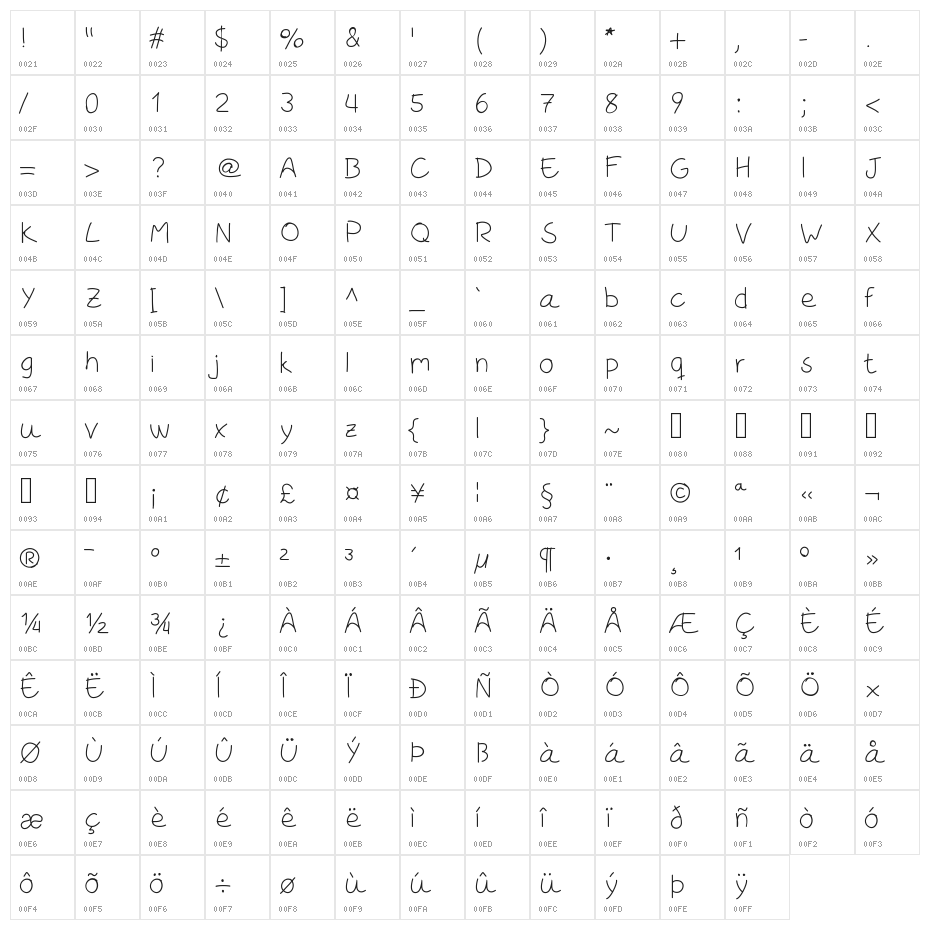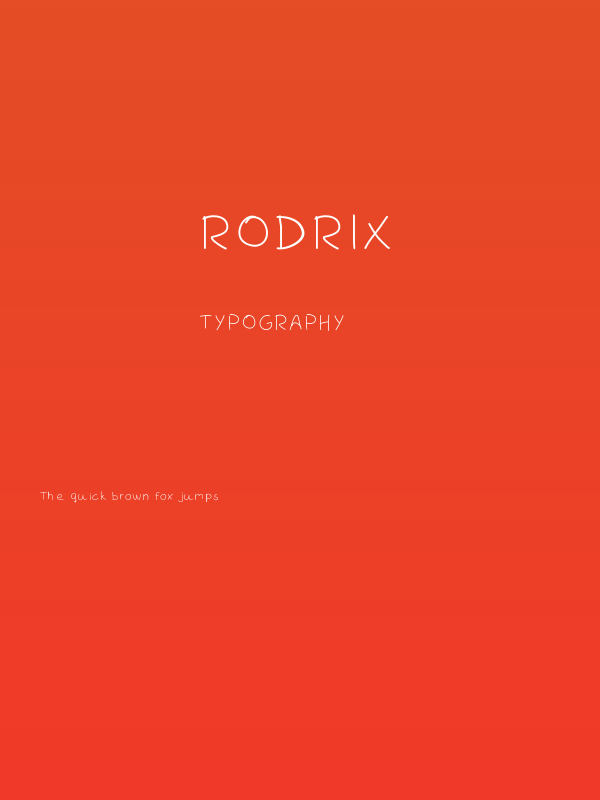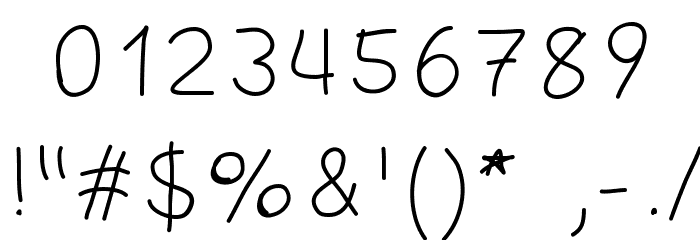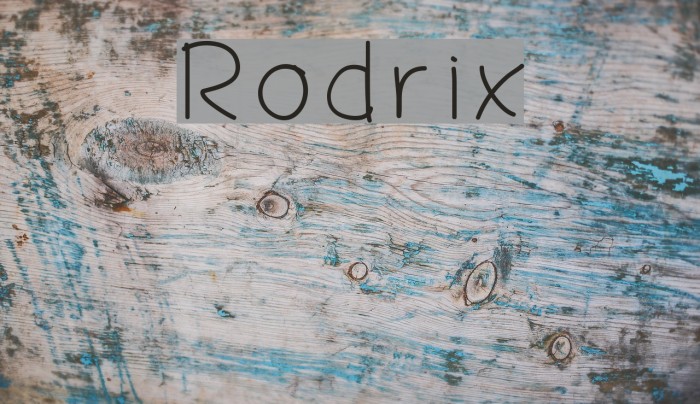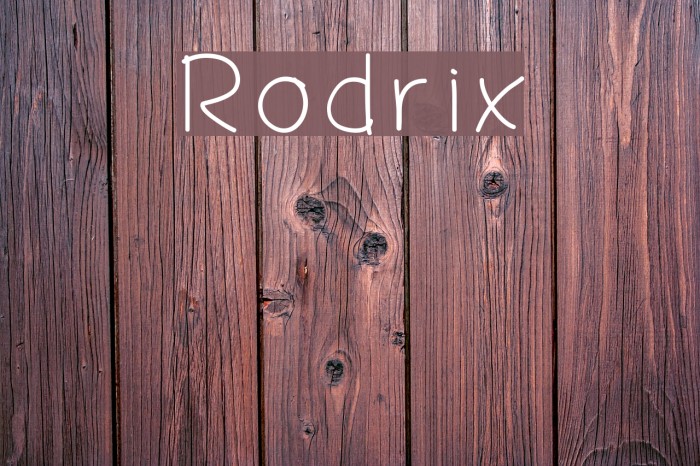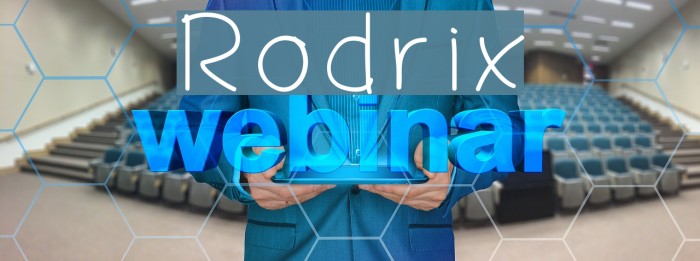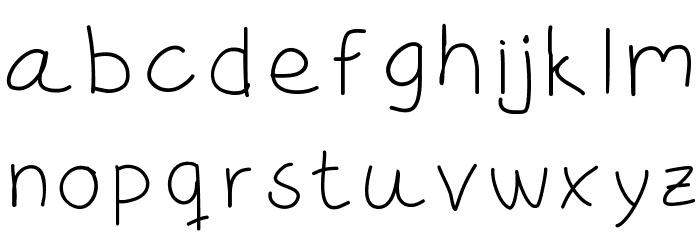
Rodrix Font
Rodrix Description
This font features a playful and casual handwritten style, characterized by its smooth, flowing lines and slightly irregular shapes. The letters have a natural, organic feel, with a consistent stroke width that gives it a uniform appearance. The uppercase letters are tall and slightly narrow, while the lowercase letters are more rounded and open. The numerals and special characters maintain the same casual aesthetic, making the font versatile for various informal applications. Its simplicity and readability make it suitable for projects that require a personal touch.
| Use Case | Headlines, Informal text, Personal projects |
| Proposed Projects | Ideal for greeting cards, children's books, personal blogs, and informal branding. |